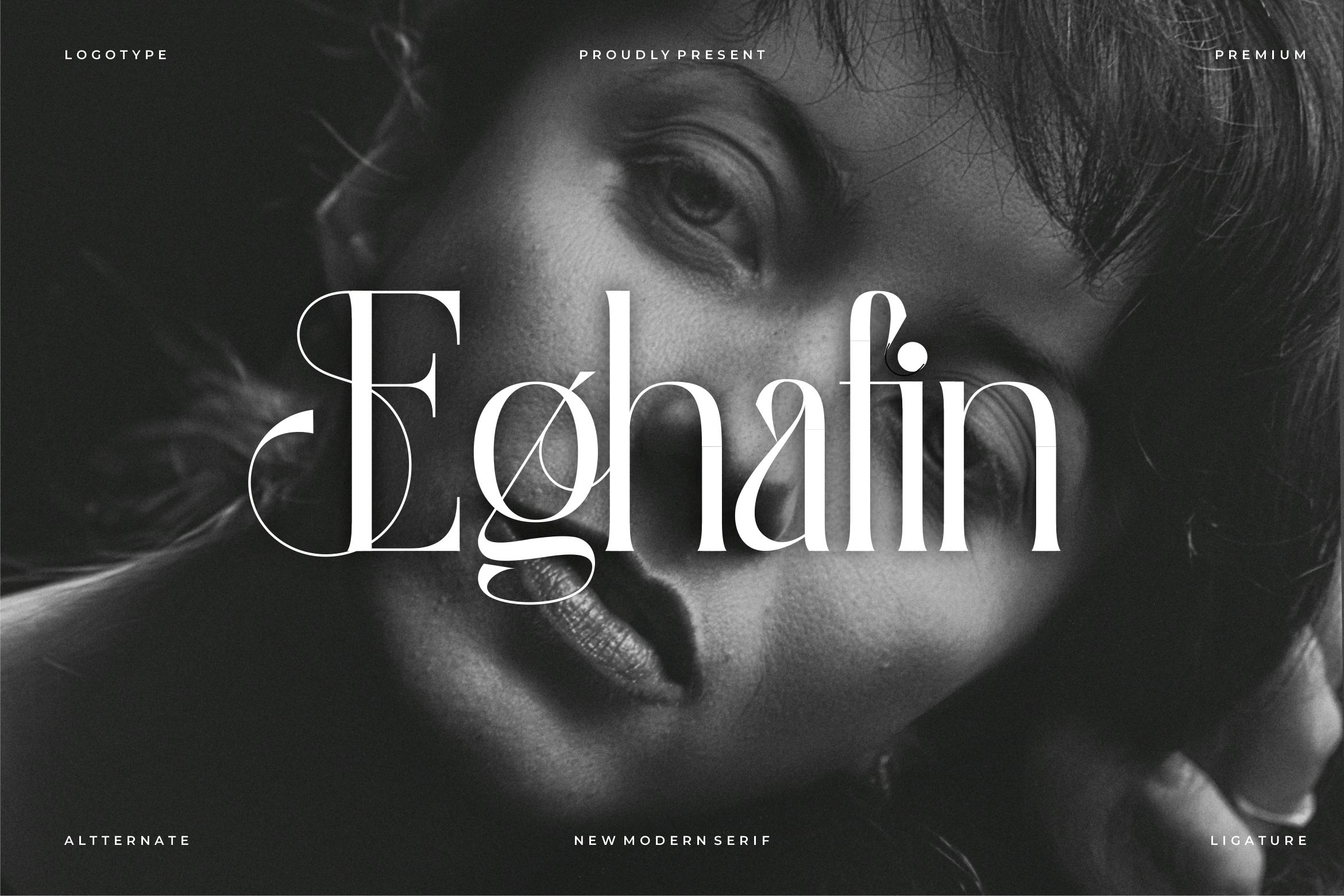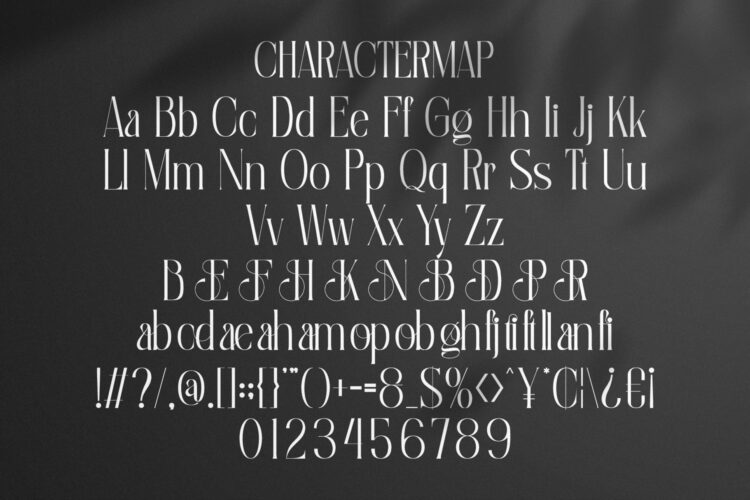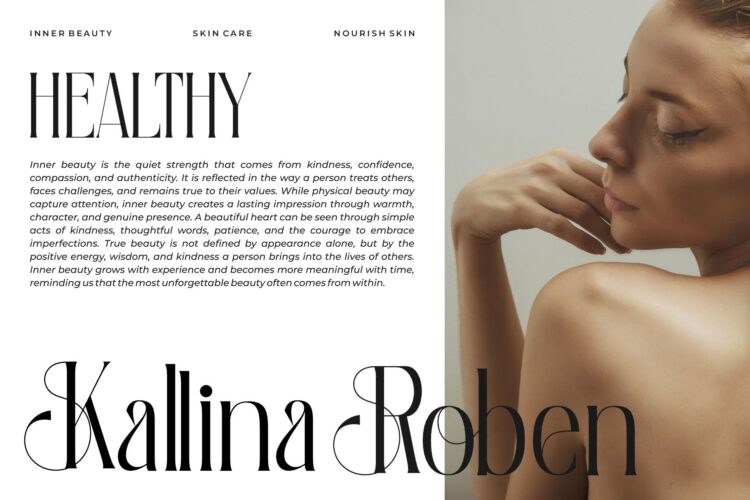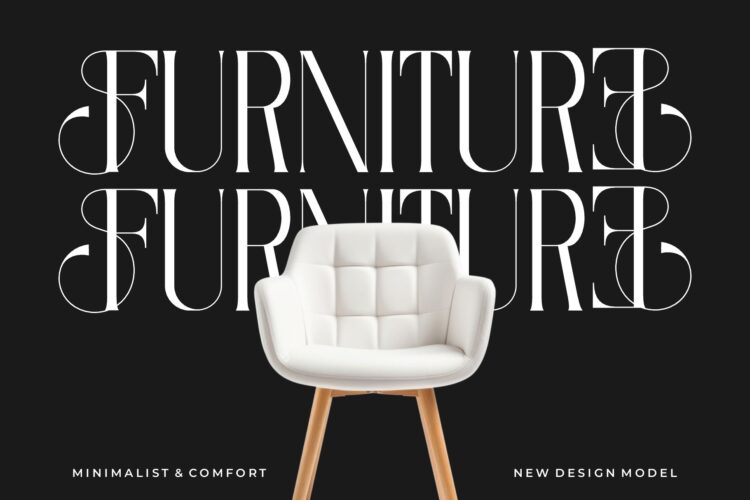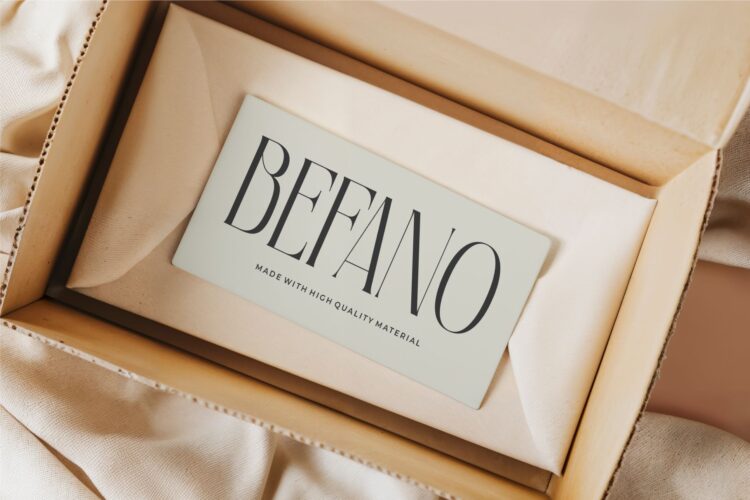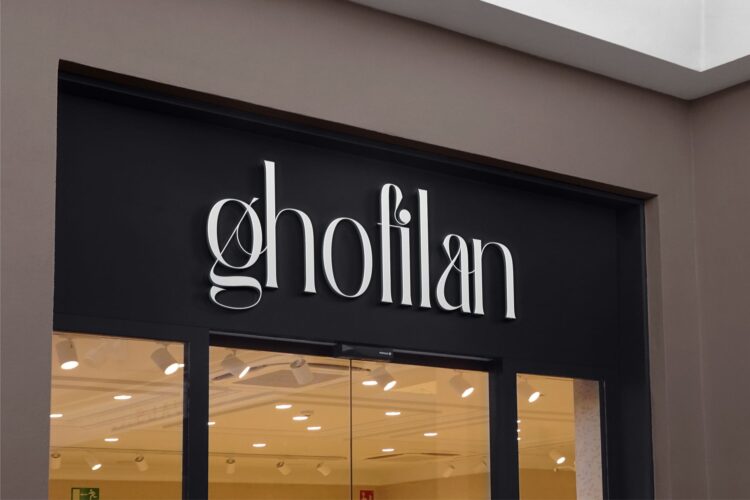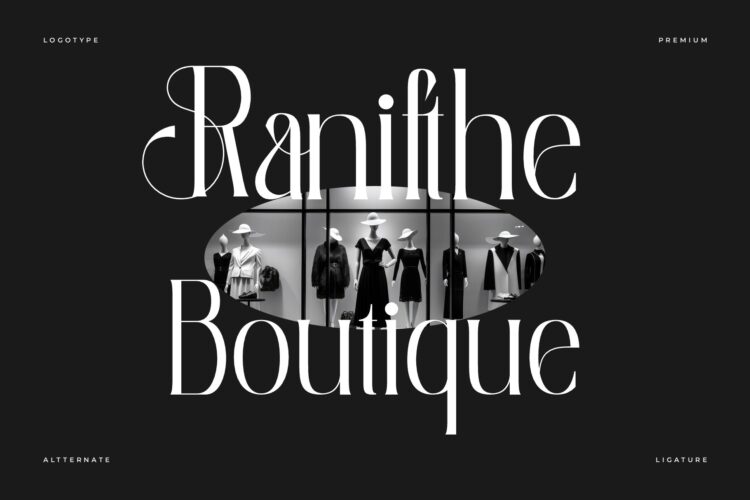
Eghafin
Eghafin is a refined, luxurious serif font with a sophisticated aesthetic and a clear sense of occasion. Its graceful curves and elegant letterforms bring polish to logos, business branding, and wedding invitations. The typeface has a timeless appeal that adds class and exclusivity, helping designs stand out with prestige.
Eghafin || Elegant Serif Font